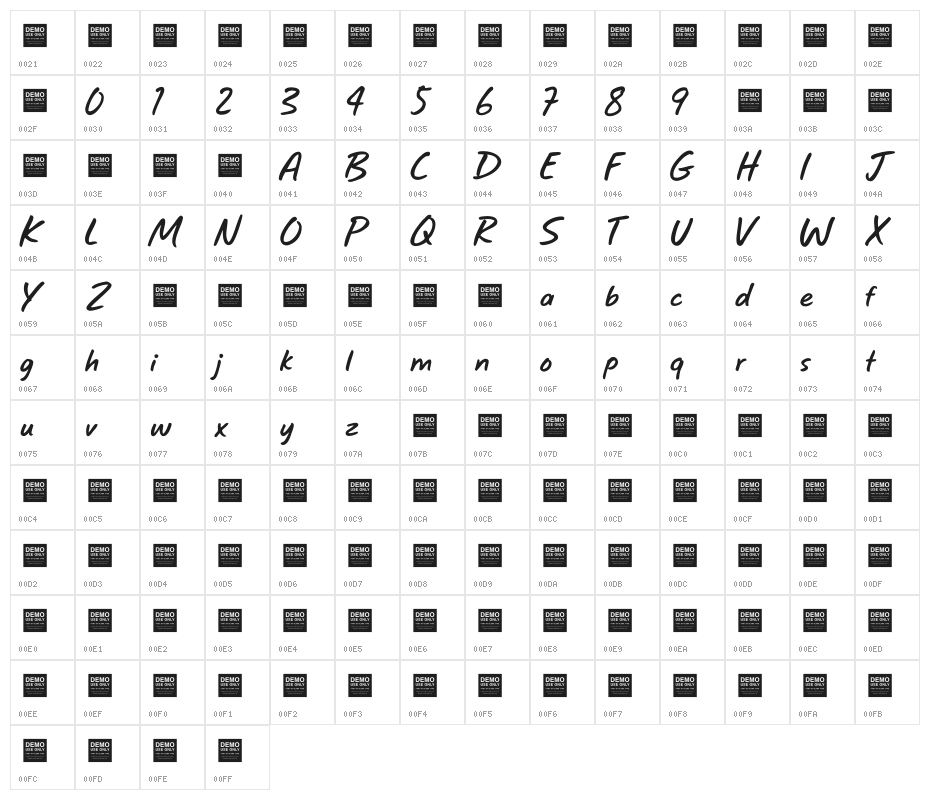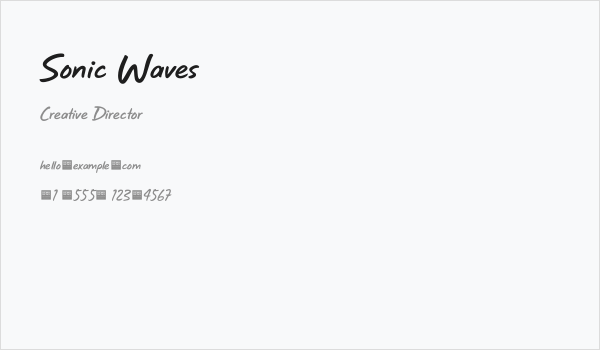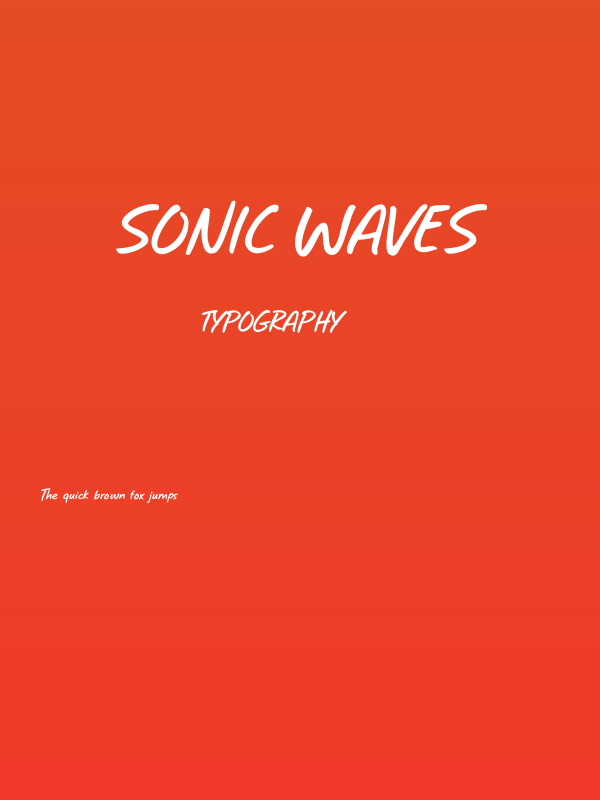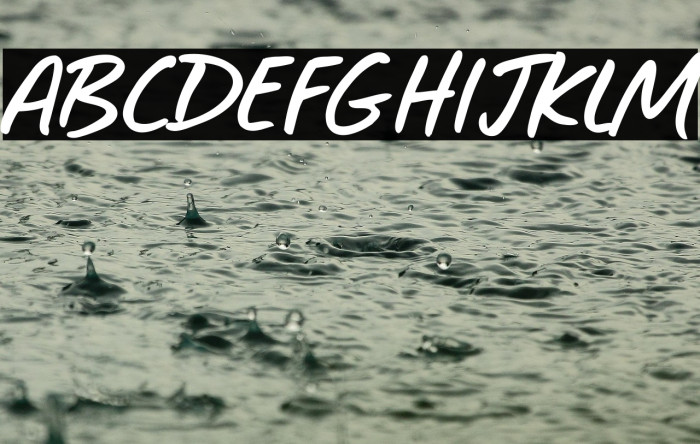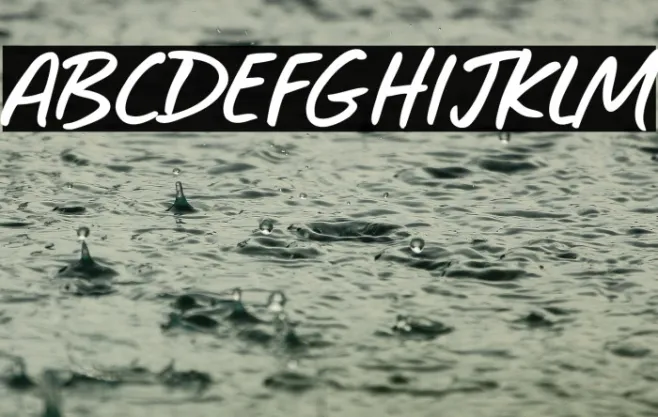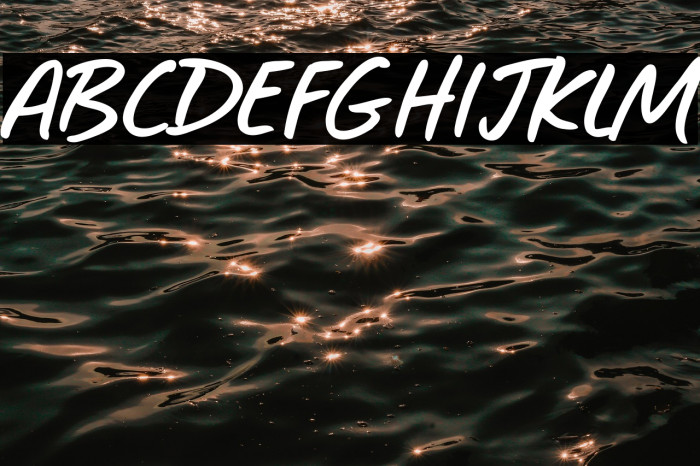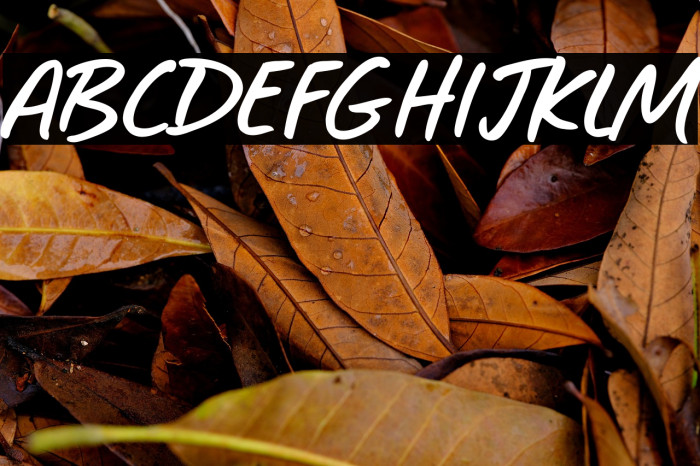
Sonic Waves Font
Sonic Waves Description
This font features a dynamic and energetic script style, characterized by smooth, flowing lines and a handwritten appearance. The letters are slightly slanted, giving a sense of motion and fluidity. The strokes are consistent in thickness, providing a balanced and cohesive look. This font captures a casual yet sophisticated vibe, making it suitable for projects that require a personal touch. The numerals and special characters maintain the same lively style, ensuring uniformity across all text elements.
SONIC-WAVES UPPERCASE
SONIC-WAVES LOWERCASE
SONIC-WAVES OTHER CHARS
| Proposed Projects | Ideal for branding, invitations, greeting cards, and social media graphics. |